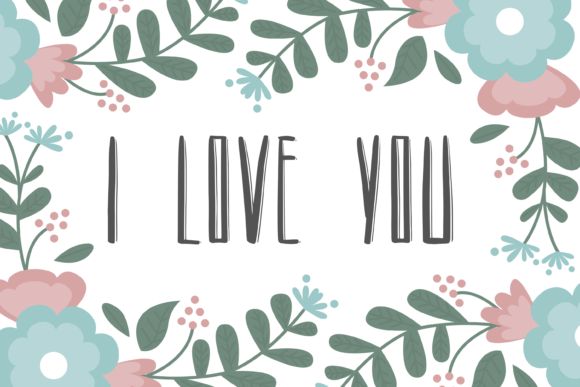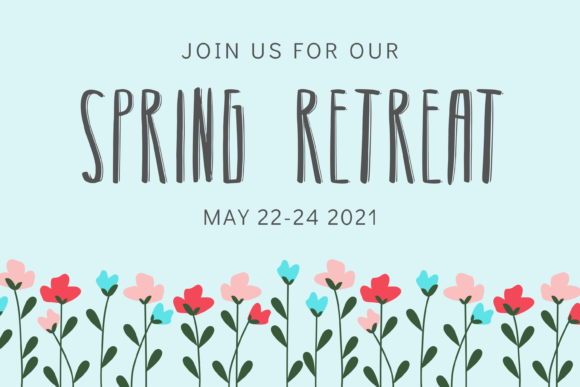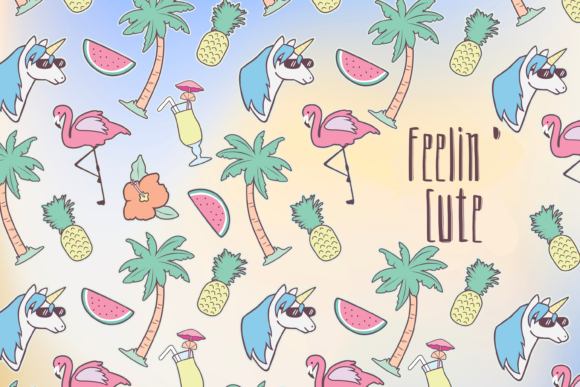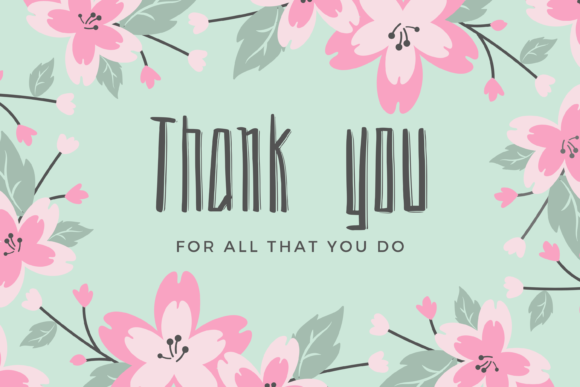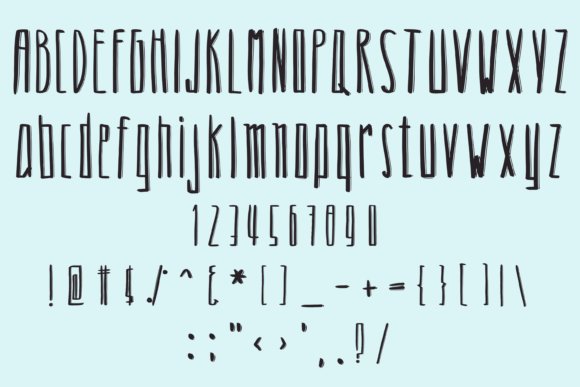
Daisy Font: The Perfect Choice for Your Creative Projects
Are you looking for a font that adds a touch of coolness and vintage charm to your designs? Look no further than the Daisy Font! This stunning display font is perfect for a wide range of creative projects, from t-shirts and sportswear to logos, advertisements, and clothing. In this article, we’ll dive into the world of Daisy Font and explore its features, benefits, and uses.
What is Daisy Font?
Daisy Font is a beautifully crafted display font that exudes a sense of nostalgia and playfulness. Its unique design makes it stand out from other fonts, giving it a distinctive look that’s sure to grab attention. Whether you’re a designer, crafty DIY enthusiast, or simply someone who loves to create, Daisy Font is an excellent choice for adding a personal touch to your projects.
Key Features of Daisy Font
- Cool and Vintage Look: Daisy Font boasts a stylish, retro aesthetic that’s perfect for creating unique and eye-catching designs.
- Display Font: Designed specifically for display purposes, Daisy Font is ideal for headlines, titles, and short text passages.
- Versatile: Use Daisy Font for a wide range of projects, including t-shirts, sportswear, logos, advertisements, clothing, and more.
- Easy to Read: Despite its decorative nature, Daisy Font remains highly legible, making it suitable for both short and long text passages.
Benefits of Using Daisy Font
So, why choose Daisy Font for your creative projects? Here are just a few benefits:
- Adds Personality: Daisy Font brings a touch of whimsy and personality to your designs, setting them apart from more generic fonts.
- Enhances Creativity: With its unique design, Daisy Font inspires creativity and encourages experimentation with different design elements.
- Time-Saving: Thanks to its versatility and ease of use, Daisy Font saves you time and effort in finding the perfect font for your project.
- High-Quality: As a professionally designed font, Daisy Font meets the highest standards of quality, ensuring your designs look professional and polished.
Uses of Daisy Font
Daisy Font is an incredibly versatile font that can be used in a wide range of creative projects, including:
- T-Shirts and Apparel: Add a touch of style and personality to your t-shirt designs, hoodies, and other apparel.
- Logos and Branding: Create unique and memorable logos, business cards, and brand identity materials with Daisy Font.
- Advertisements: Use Daisy Font to create eye-catching ads, flyers, and brochures that grab attention.
- Crafting and DIY Projects: Add a personal touch to your scrapbooking, journaling, and other crafty projects with Daisy Font.
Tips for Using Daisy Font
To get the most out of Daisy Font, here are a few tips:
- Experiment with Colors: Try pairing Daisy Font with different colors and textures to create unique and eye-catching designs.
- Play with Sizes: Experiment with different font sizes to create visual interest and hierarchy in your designs.
- Combine with Other Fonts: Pair Daisy Font with other fonts to create interesting contrast and add depth to your designs.
| Font Name | Daisy Font |
| Author | Rasa |